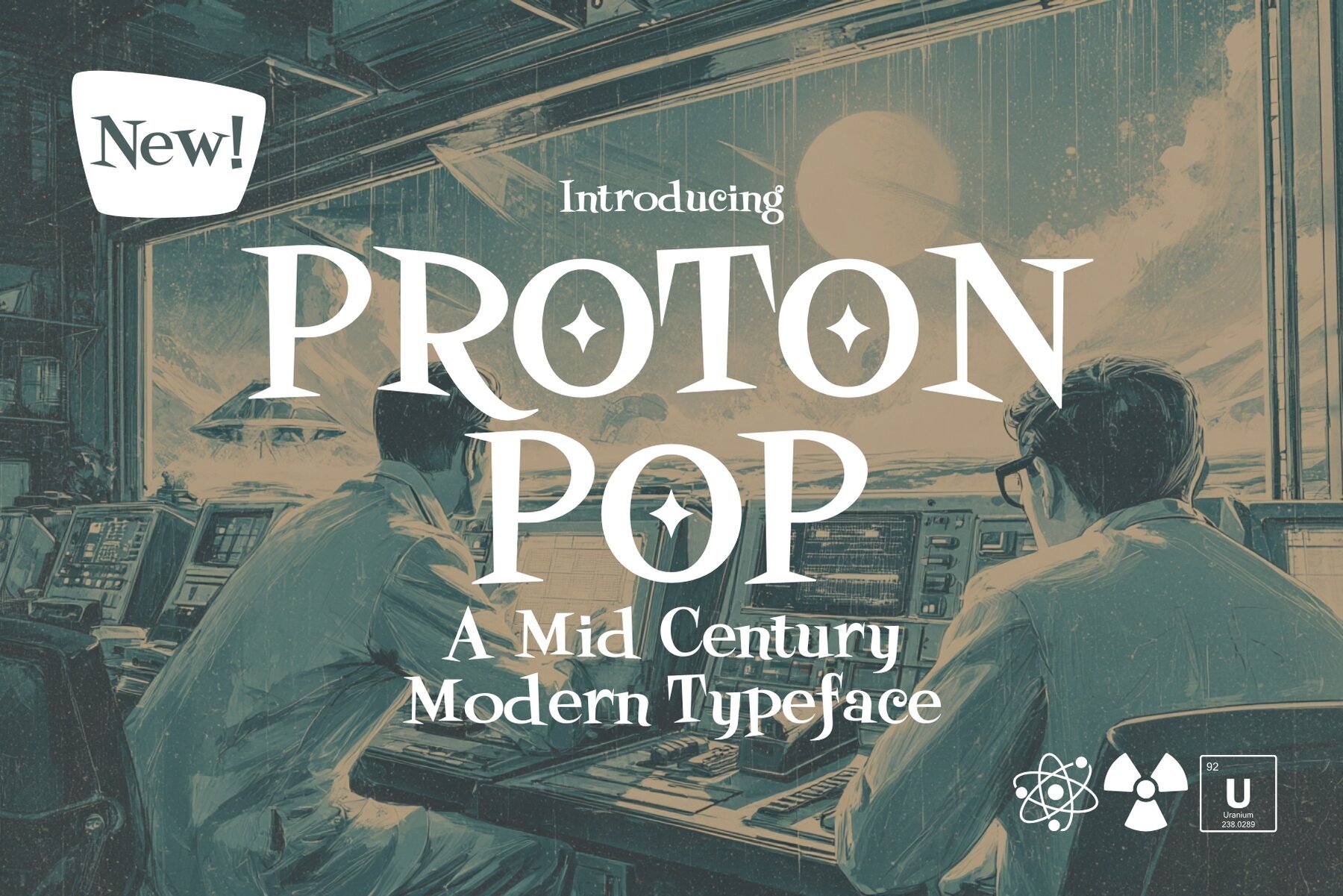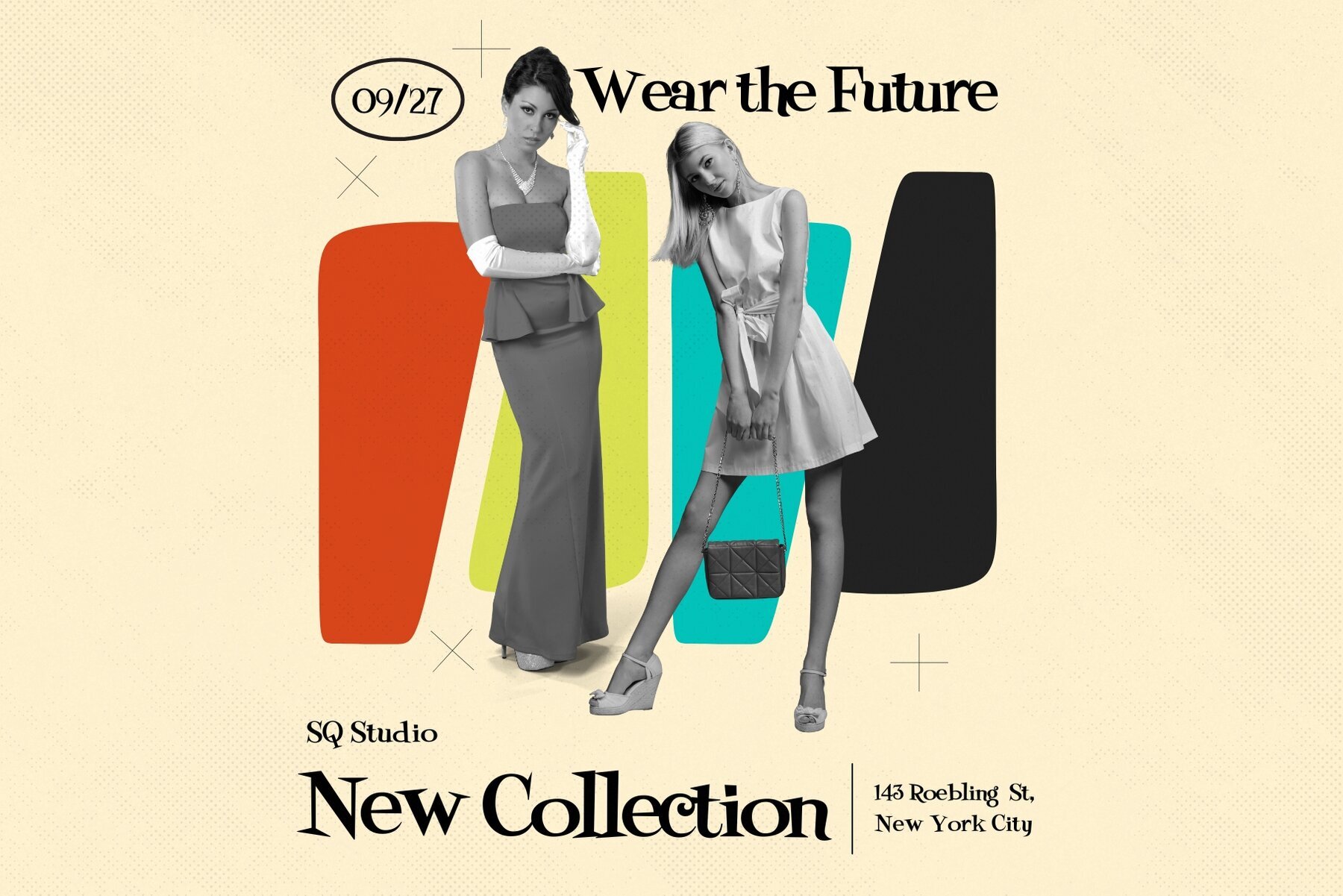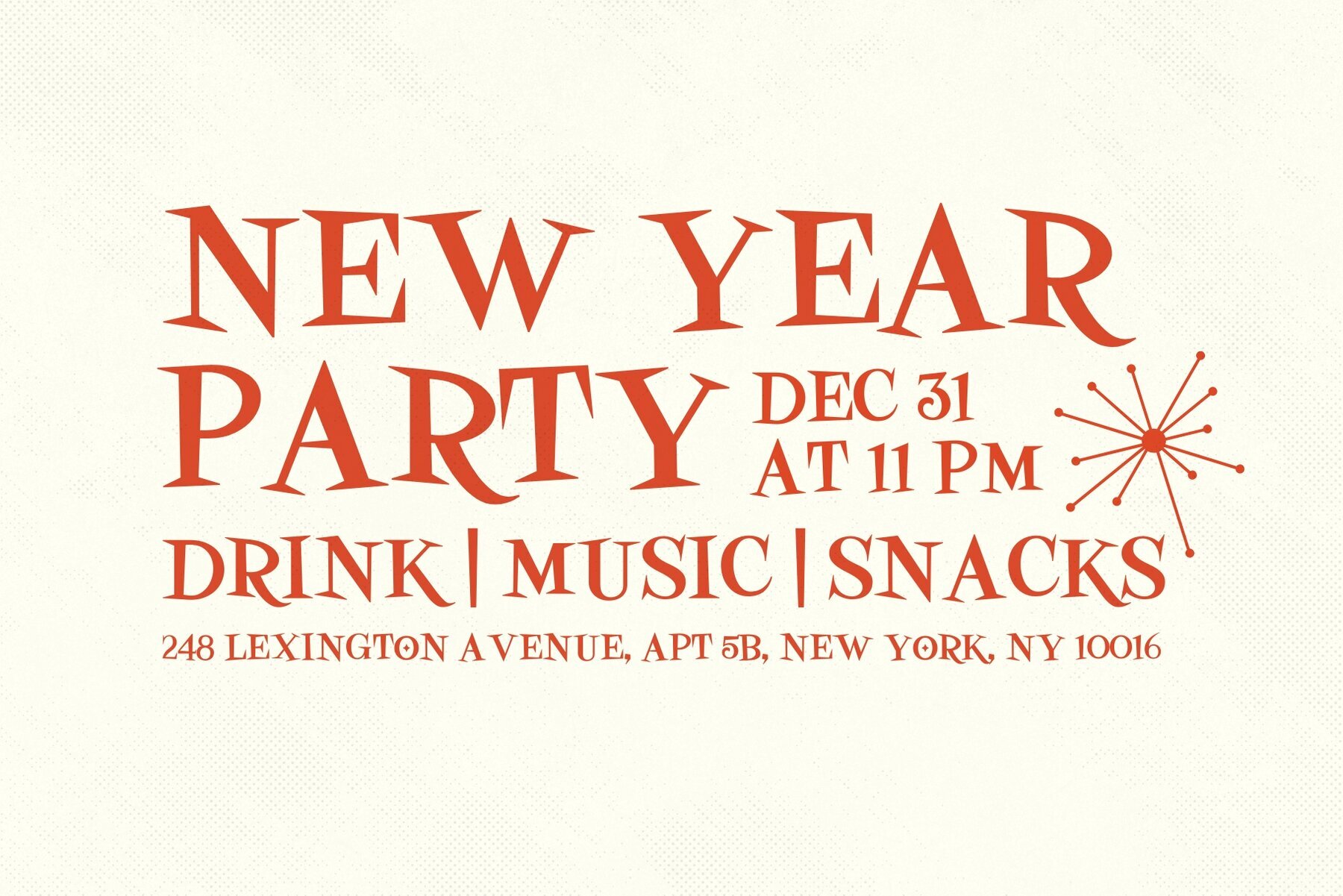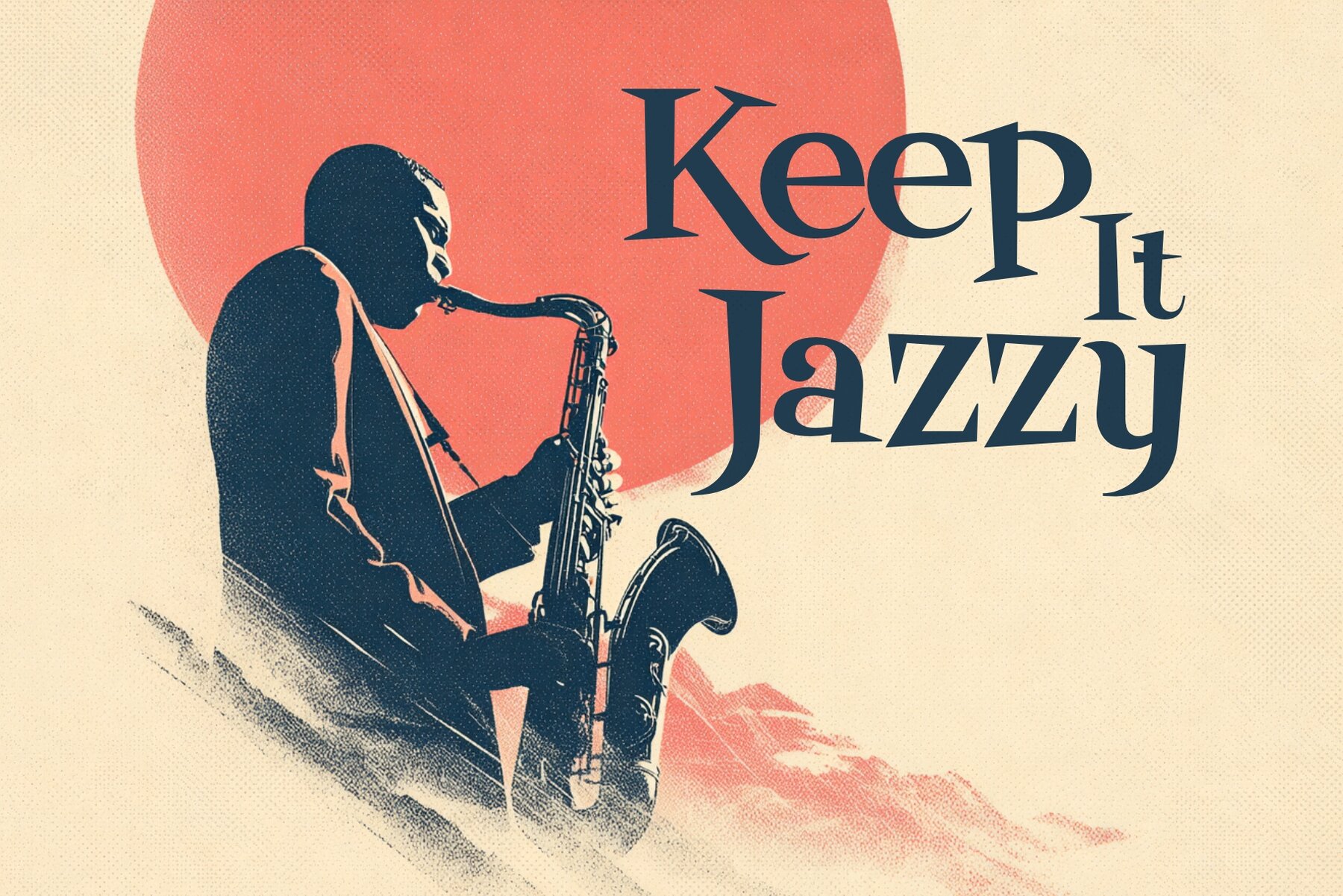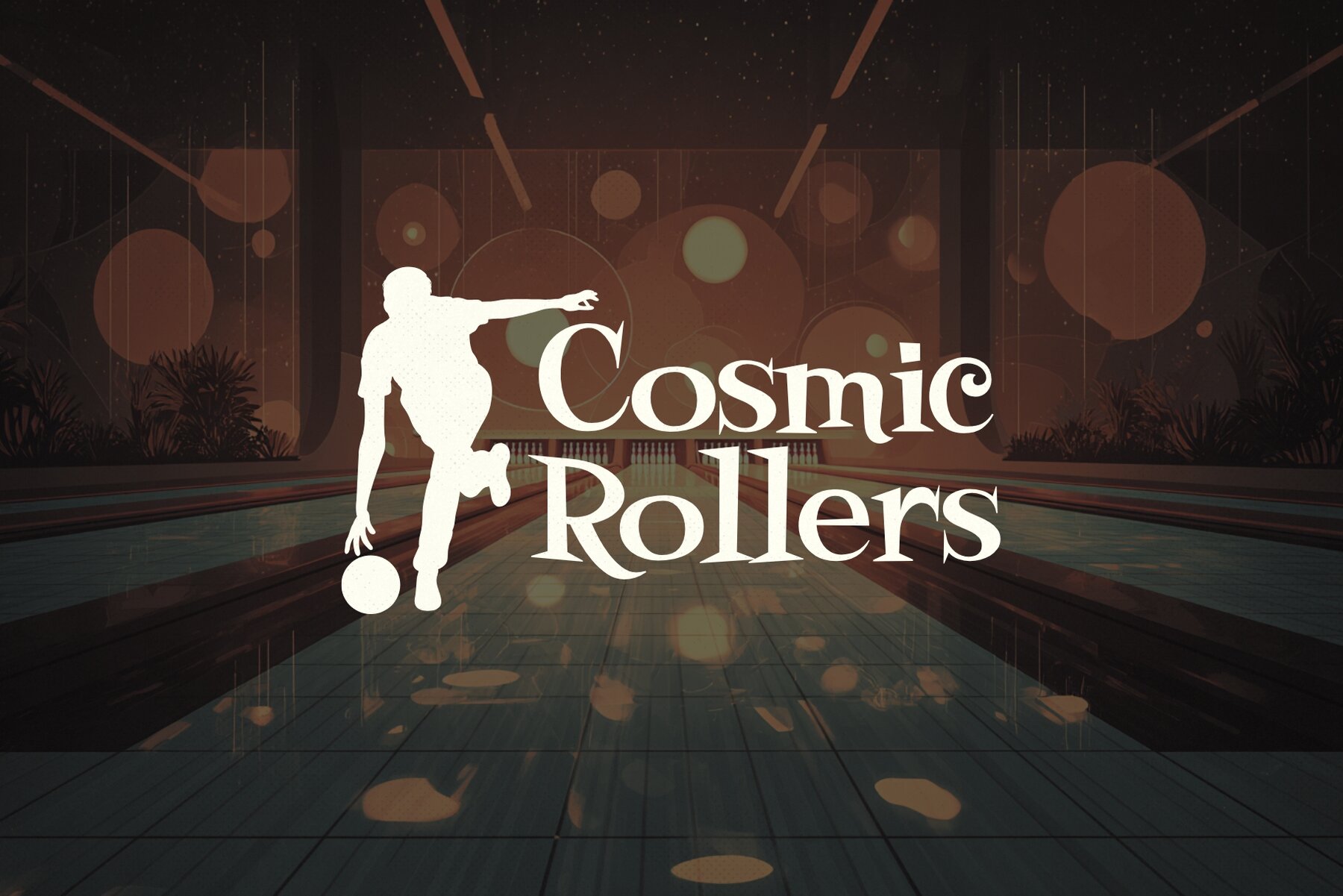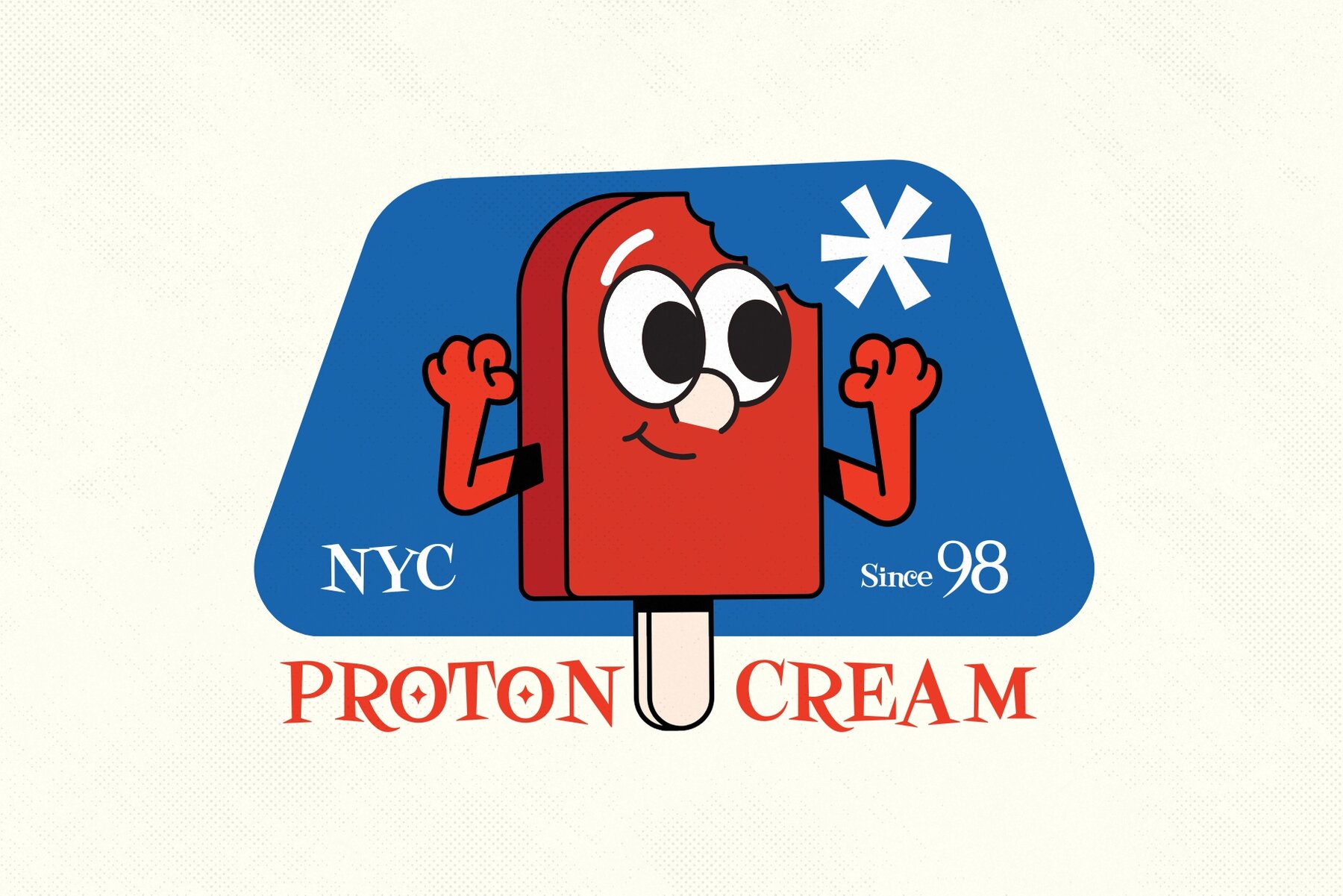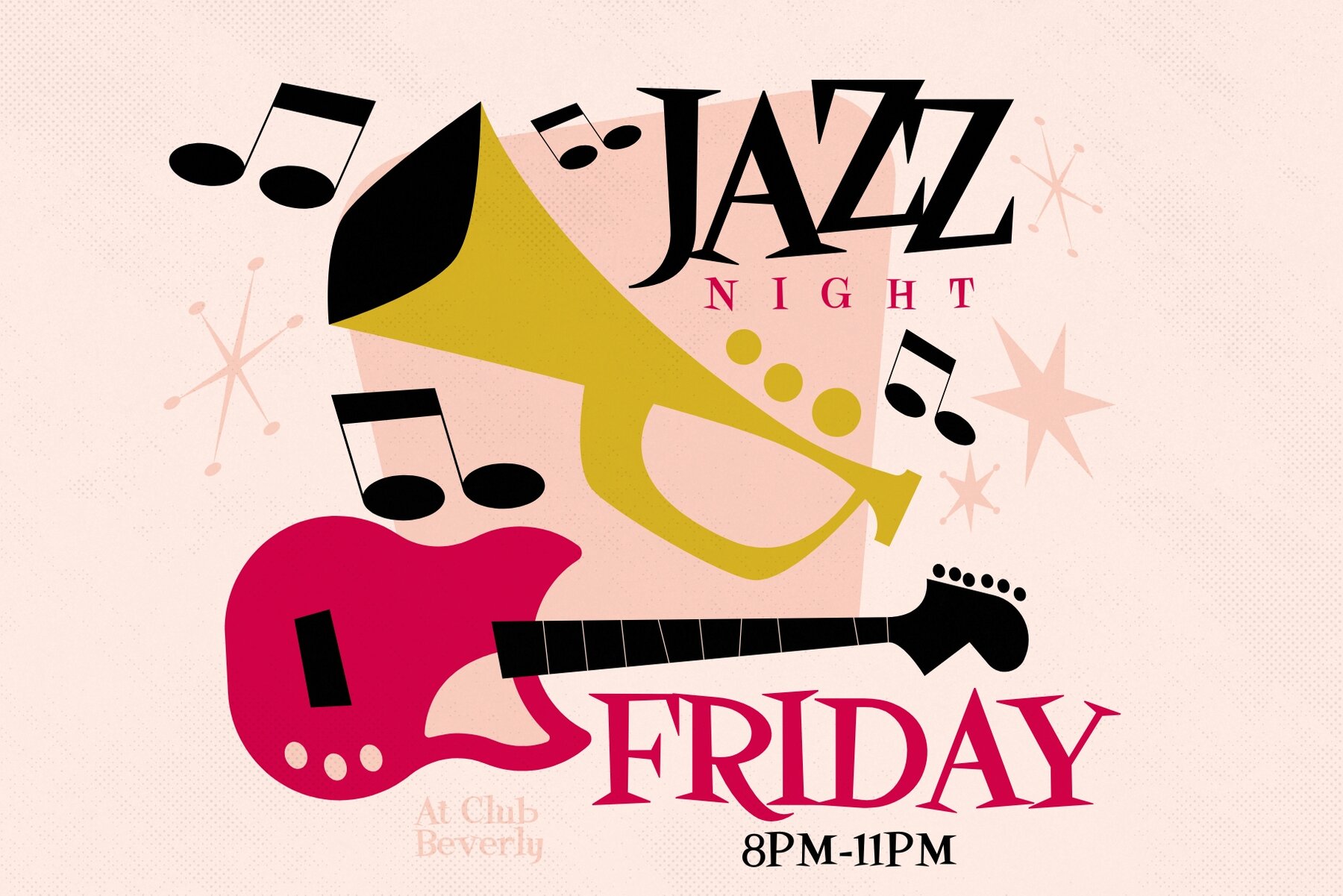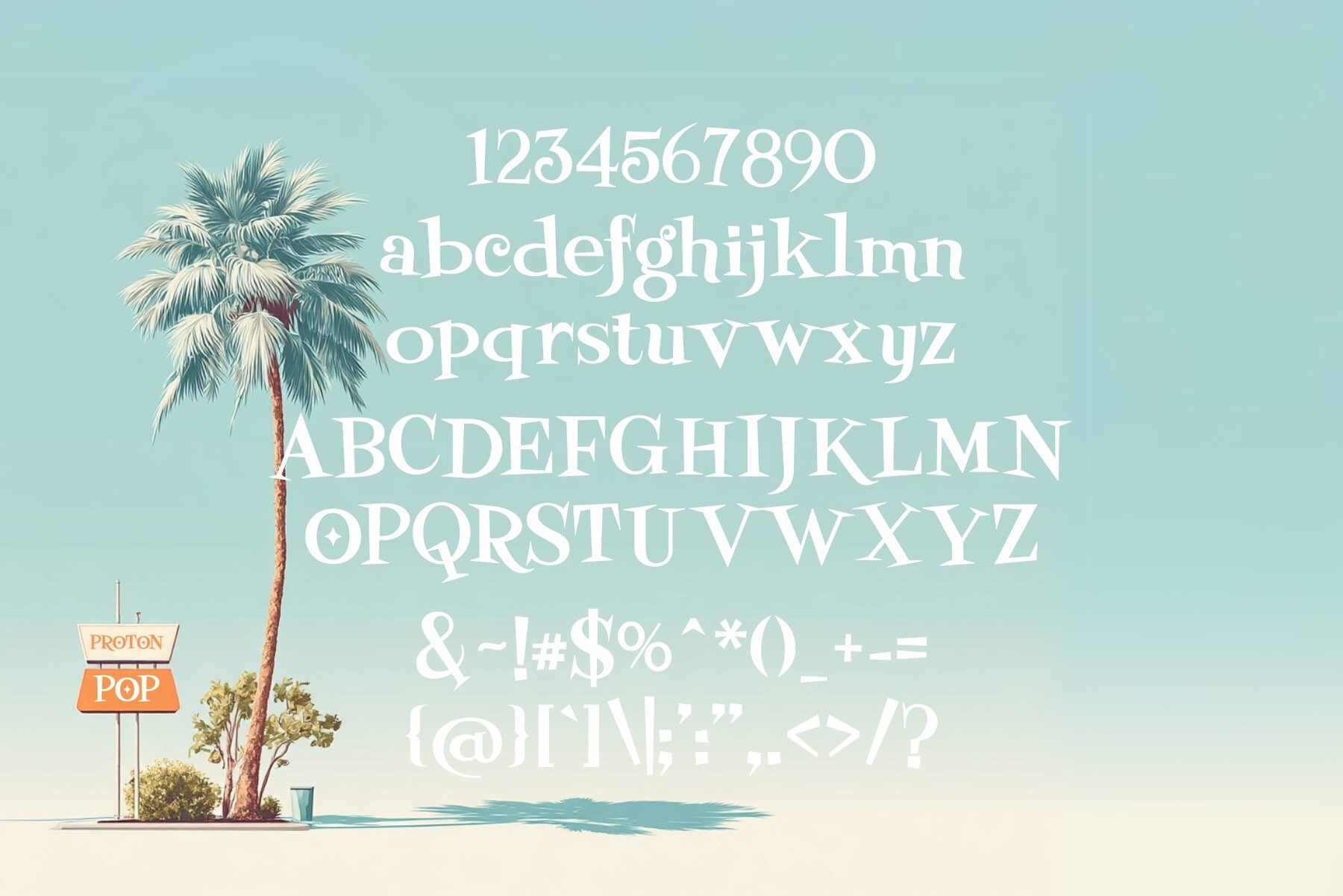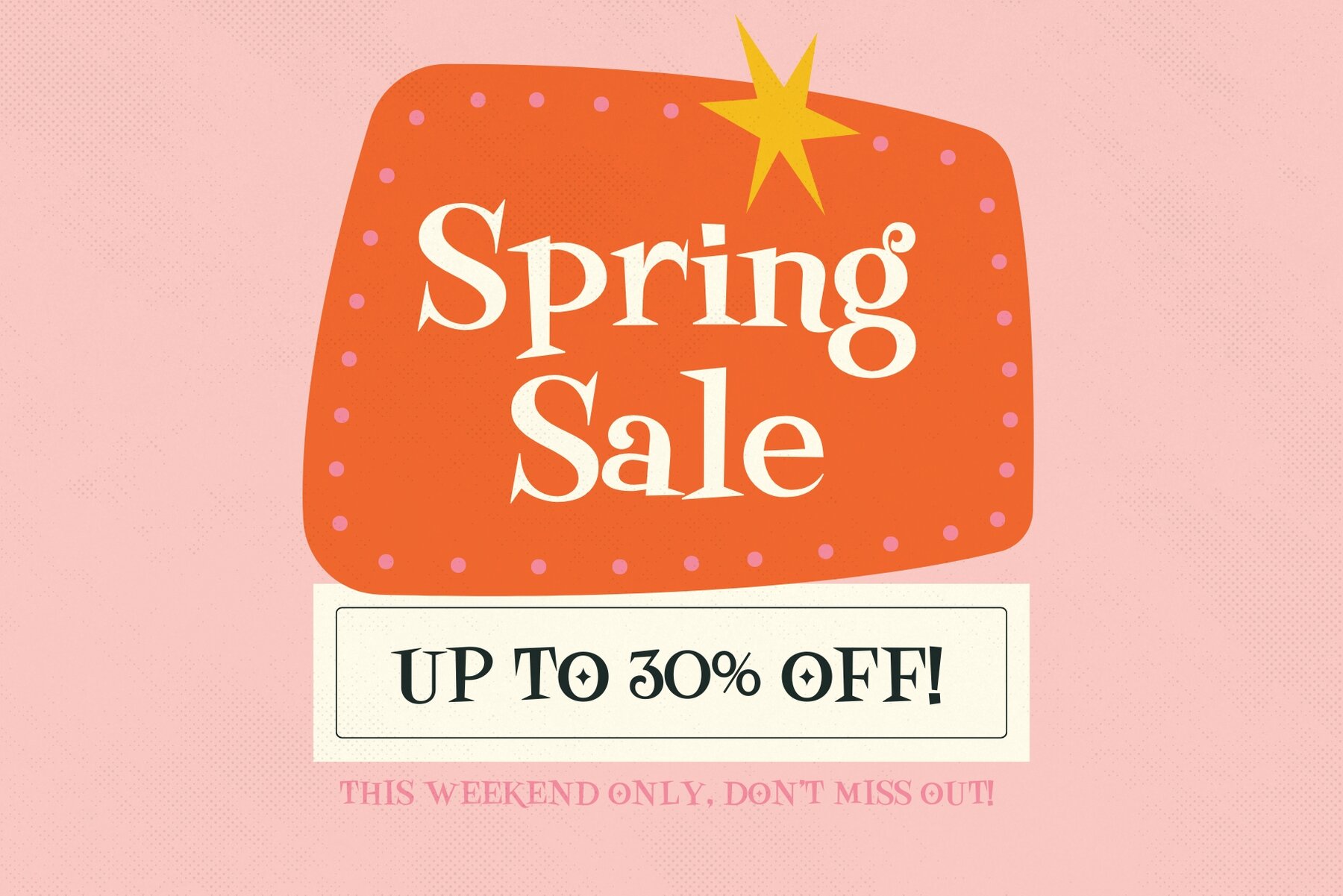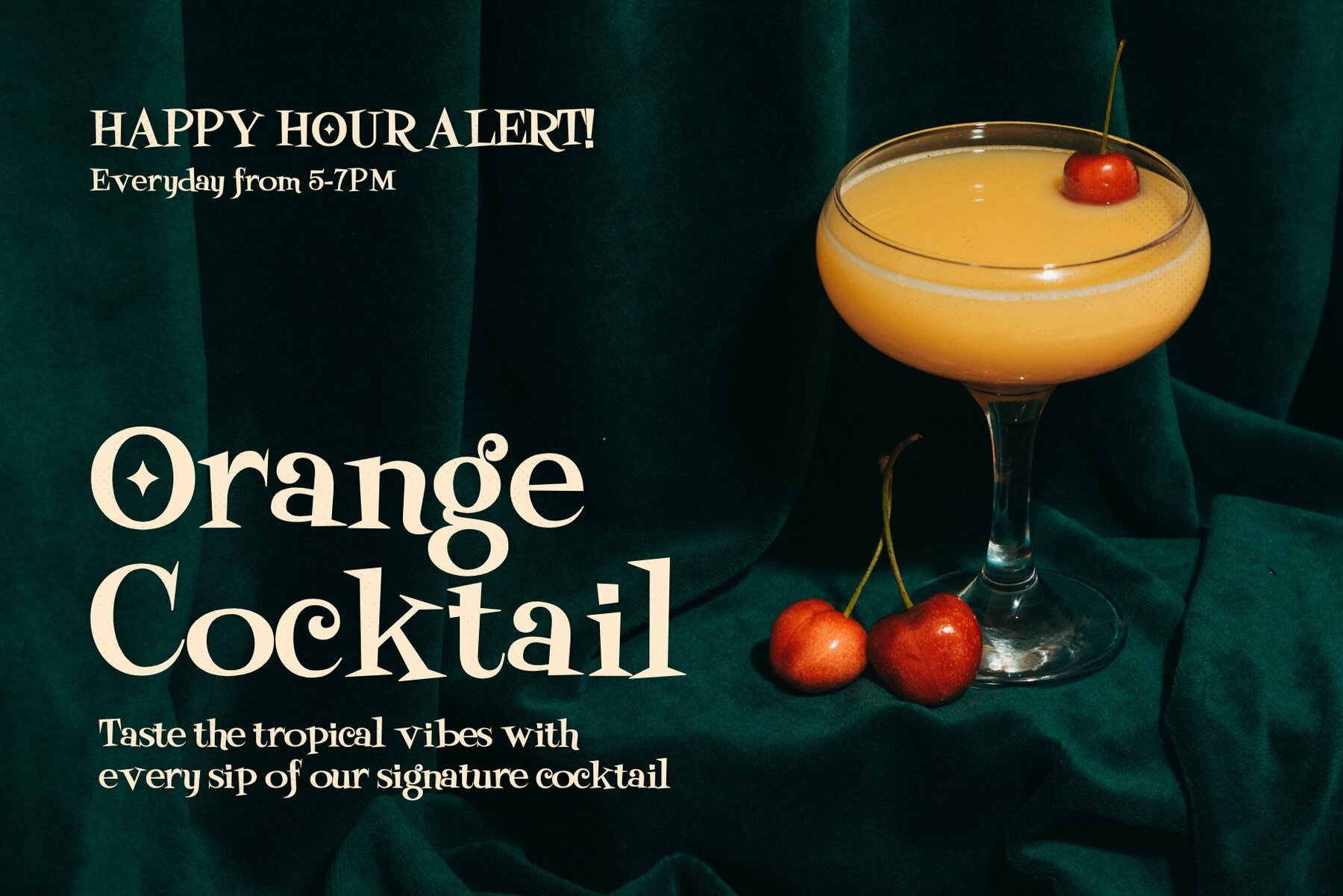
Proton Pop Font
Proton Pop Regular
Blast off into the golden era of design with Proton Pop, a radiant typeface inspired by the Atomic Age and Mid-Century Modern aesthetics. Bursting with retro charm and futuristic flair, this font channels the optimism, innovation, and sleek geometry of the 1950s and ’60s, when everything from cars to coffee tables looked like it came from outer space. Proton Pop isn’t just a pretty face. With 232 meticulously crafted glyphs and support for 68 languages, it’s as functional as it is fabulous. Whether you're designing logos, packaging, posters, apparel, or social graphics, this versatile typeface adapts beautifully to both digital and print projects. From eye-catching headlines to nostalgic branding, Proton Pop delivers that unmistakable retro-futuristic vibe, bold, playful, and utterly timeless.